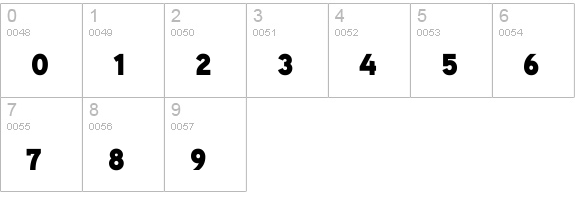
Aaux ProBlack SC Font Details
Aaux ProBlack SC font is a modern and versatile typeface that exudes sophistication and elegance. With its sleek lines and bold presence, this font is perfect for making a statement in any design project. The Aaux ProBlack SC font is ideal for headlines, logos, branding, and any other creative endeavor that requires a strong and impactful typeface. The best part? Aaux ProBlack SC font is completely free to download at FontsMarket.com. Whether you're a designer looking to add a touch of class to your work or a business owner in need of a standout font for your branding, Aaux ProBlack SC font is the perfect choice. Download it today and elevate your designs with this stunning and versatile font.